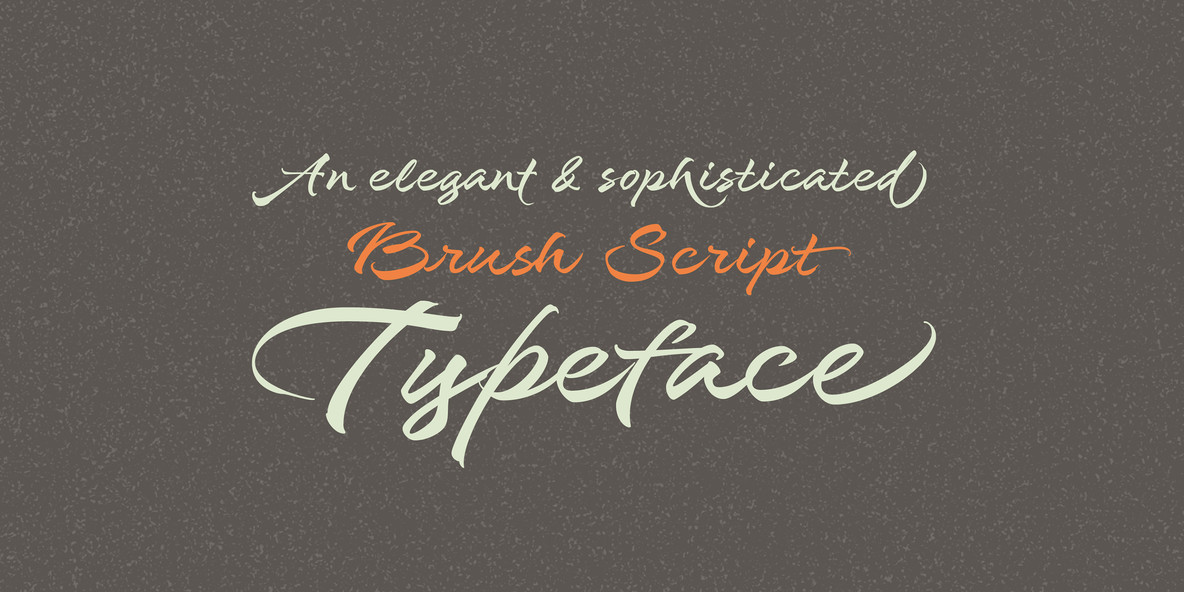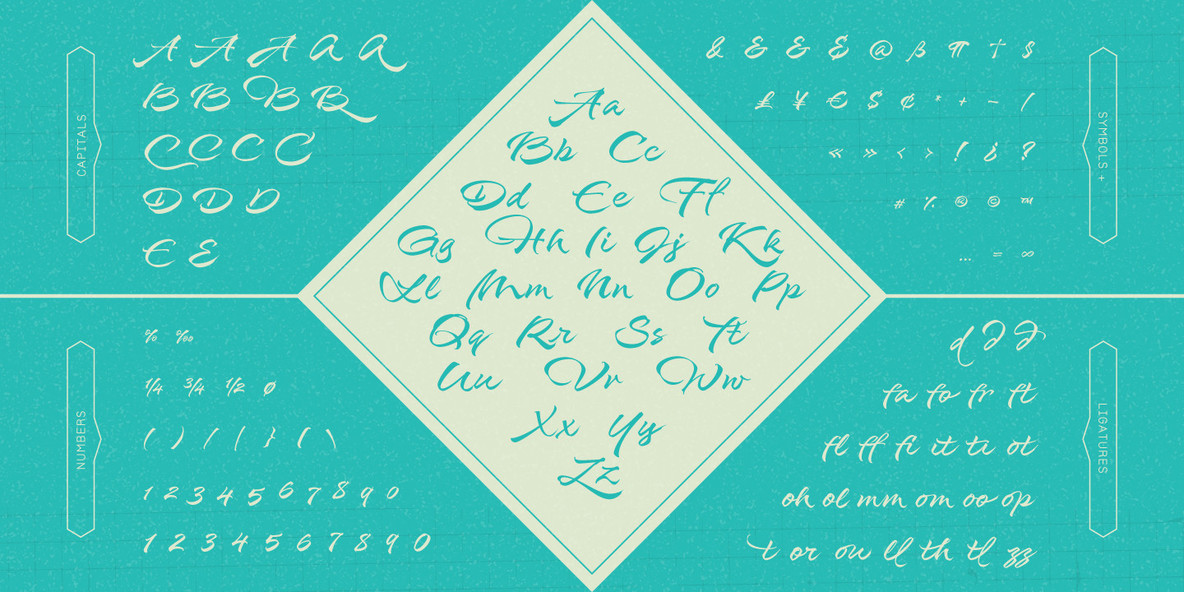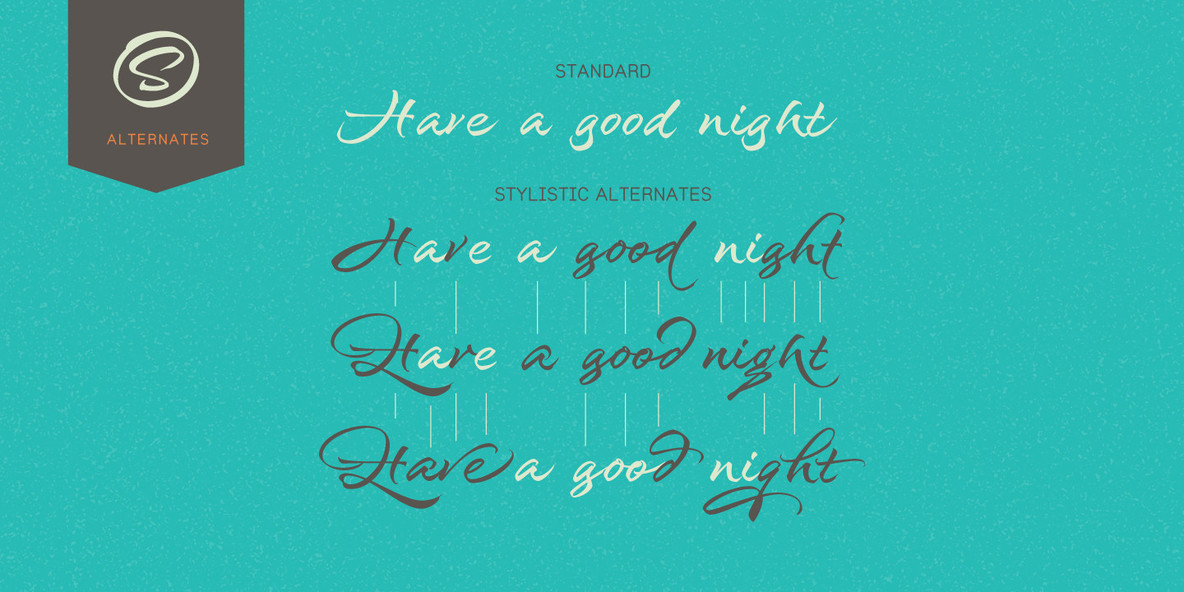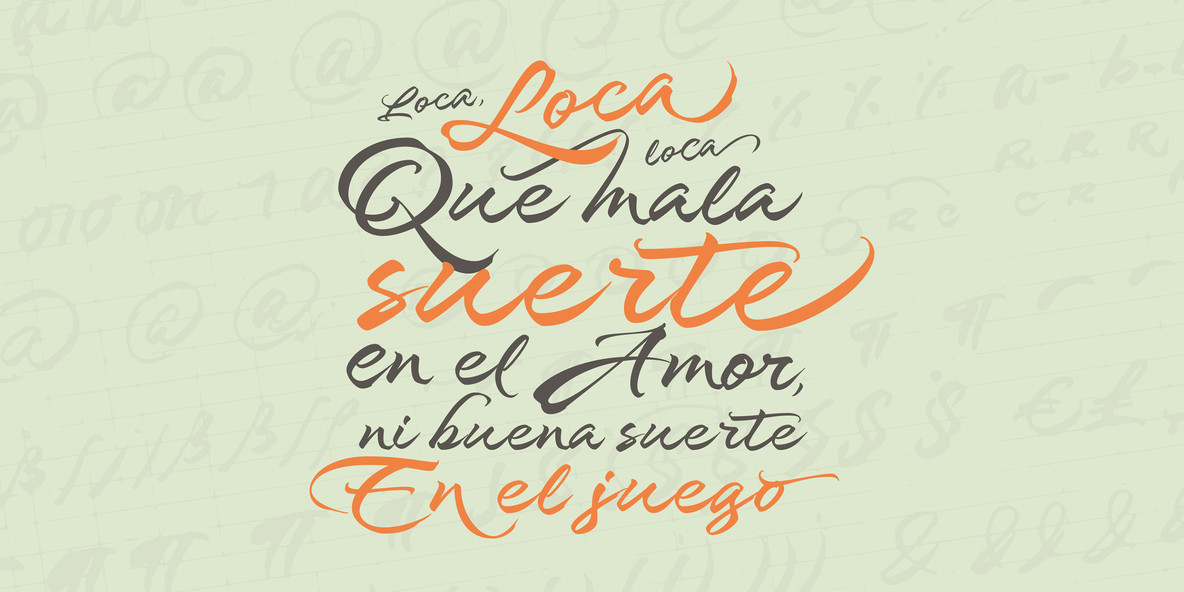
Salamat
Since the release of his first typeface, Zulia Pro, Joluvian has spent his time dedicatedly experimenting with an array of calligraphic styles and typography, before starting on his second typeface, Salamat. The journey began on a trip to Asia, where Joluvian was inspired by his time in the Philippines. After a series of discarded type sketches, the first stroke of what is now Salamat was then born.
What at first was a quick sketch, over time, evolved into a stylized typography; that lends to humanistic-expressive calligraphy, optimized with wide variety of swash capitals, contextuals ligatures, ascending and descending, starting and ending letters and a wide range of characters for each glyph. Salamat provides the user absolute freedom to play, create words, sentences and even very stylized paragraphs. Giving one the freedom with type, the way the Philippines gave Joluvian the freedom to explore calligraphy and typography.
Joluvian considers Salamat a new benchmark in his career. He now possesses more typography maturity, and a refined focus to put into practice all the knowledge acquired in his recent years of study, for this and much more salamat (‘thank you’ in Tagalog) to the Philippines.